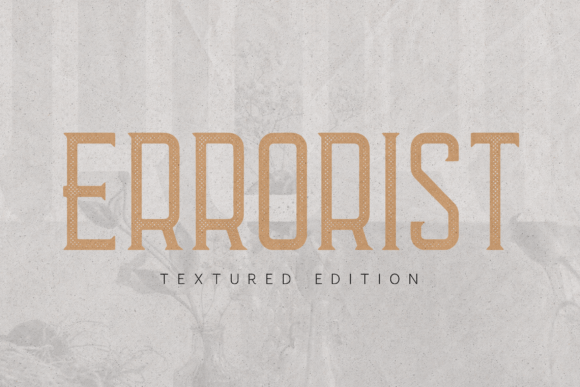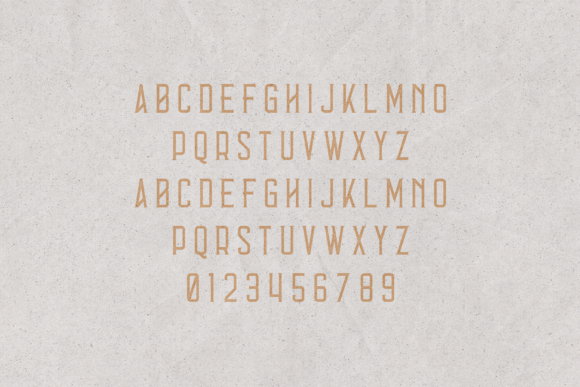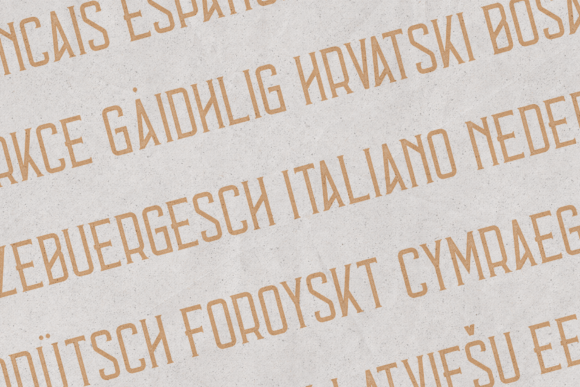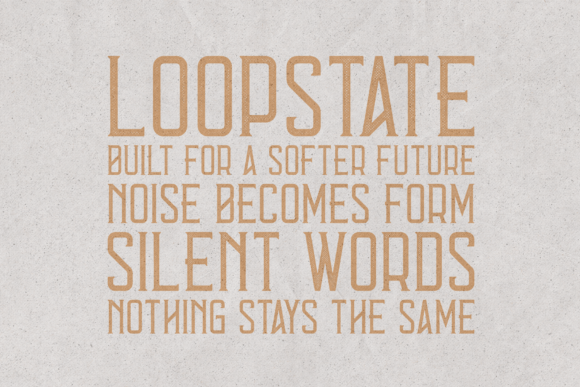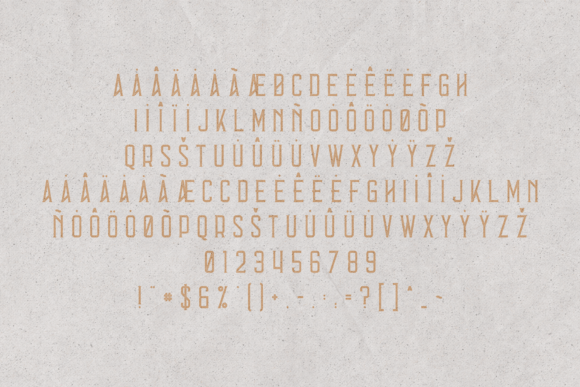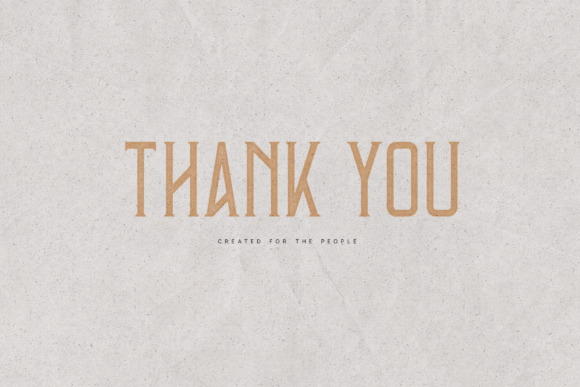
The Perfect Imperfection: Unleashing the Power of Errorist Font
Have you ever stared at a blank page, waiting for inspiration to strike, only to be interrupted by the gentle hum of your printer as it churns out a fresh sheet of paper? It’s in these moments that we designers are reminded of the magic that happens when technology meets human touch. And that’s exactly what the Errorist Font brings to the table – a tactile, vintage aesthetic that will transport your designs to a bygone era.
Designed to add character and personality to modern design projects, the Errorist Font is a bold, textured serif display font that’s perfect for logos, packaging, posters, and more. Its unique texture gives typography a handcrafted print aesthetic reminiscent of traditional letterpress and retro printmaking, making it a valuable asset for designers looking to add a touch of sophistication to their work.
Whether you’re building a bold brand identity or creating eye-catching headlines, the Errorist Font delivers a powerful typographic voice with timeless vintage character. Its versatility and unique texture make it a must-have for designers looking to add a touch of imperfection to their work.
Errorist Font Key Features
- Font Family: Errorist Font is a unique sans-serif font designed for digital and print media.
- Size: Errorist Font comes in multiple weights, ranging from Thin (100) to Extra Bold (900), providing flexibility for various design needs.
- Resolution: Optimized for high-resolution displays (HiDPI) and suitable for printing at 300 DPI.
- Unique Characteristics: The font features a distressed, hand-drawn aesthetic with subtle texture and irregularities, adding a touch of human error to digital designs.
- Language Support: Errorist Font includes comprehensive language support, covering Latin, Cyrillic, and Greek alphabets, as well as various diacritics and punctuation marks.
Errorist Font Review
Overall, I’d say Errorist Font is a solid addition to any designer’s toolkit. It’s got a unique, distressed look that’s perfect for creating a retro or vintage vibe. ✨ I love how the font’s imperfections give it a handmade feel that’s hard to replicate with more polished fonts.
The Errorist Font family includes a range of weights and styles, making it easy to find the perfect fit for your design. The bold weights are particularly effective at grabbing attention, while the lighter weights add a nice touch of subtlety. ✨ The font’s x-height is also well-balanced, making it easy to read at smaller sizes.
That being said, there are a few limitations to keep in mind. ⚠️ The font’s distressed look can sometimes make it difficult to read at larger sizes, and the irregular letterforms can be a bit jarring to some eyes. Additionally, the font’s limited character set may not be suitable for complex text-heavy designs.
- Unique, distressed look perfect for retro or vintage designs
- Range of weights and styles to suit different design needs
- Well-balanced x-height for easy readability
- Limited character set may not be suitable for complex text-heavy designs
Errorist Font Practical Application Guide
The Errorist font is ideal for:
- Creating a distressed or vintage look.
- Designing posters, flyers, or brochures.
- Adding a touch of edginess to your brand’s visual identity.